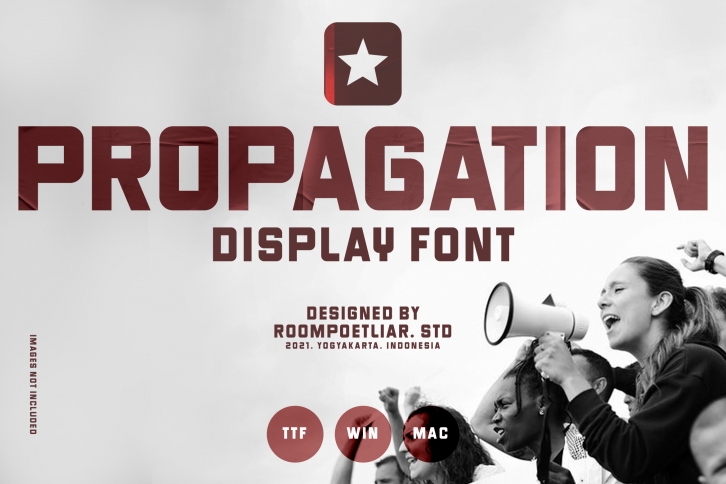
Propagation is a cool and bold thick display font. No matter the topic, this font will be an incredible asset to your fonts’ library, as it has the potential to elevate any creation.Â